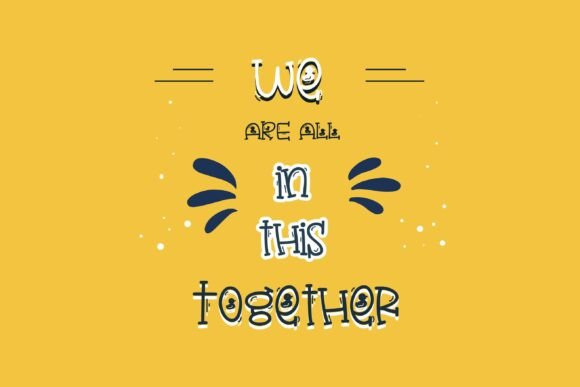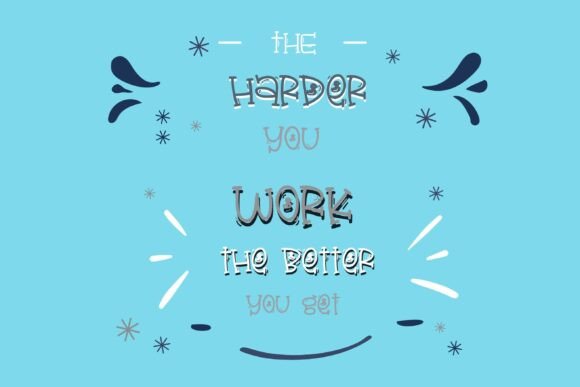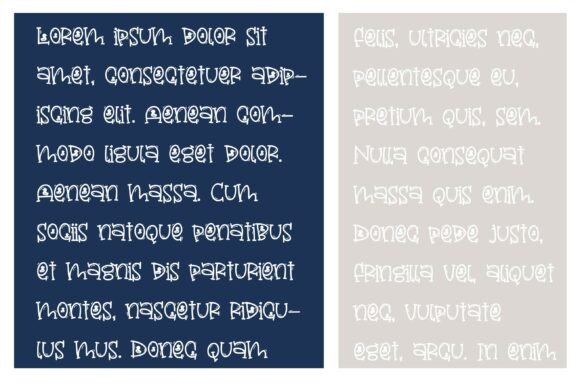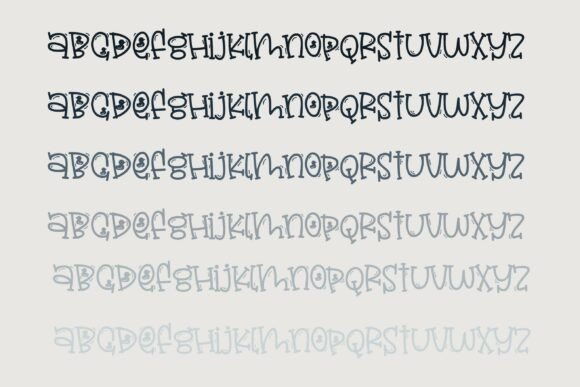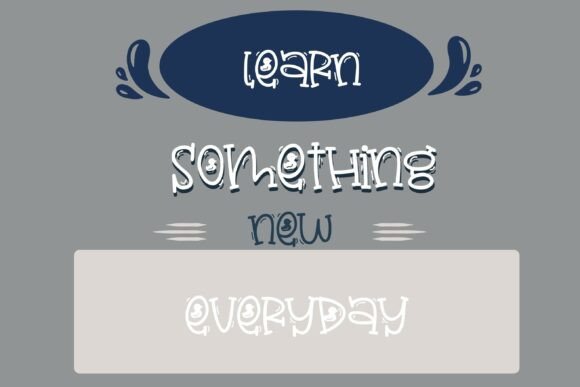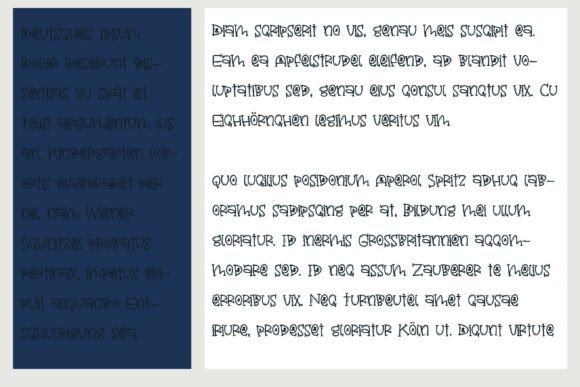
The Perfect Font for a Quacking Good Time
Who hasn’t experienced the joy of creating something beautiful by hand? Remember the thrill of painting a picture, crafting a card, or writing a heartfelt letter to a loved one? For designers, this feeling is a constant companion, and it’s what drives them to search for the perfect font to bring their creations to life. For those looking to add a touch of whimsy and personality to their designs, there’s one font that stands out from the rest: the Baby Duckling Font.
This hand-crafted font is a delightful print with hand-crafted slab serifs and adorable ducklings throughout, making it perfect for invitations, greeting cards, and other special occasions. Whether you’re a seasoned designer or just starting out, the Baby Duckling Font is a valuable addition to your toolkit, offering a unique and eye-catching way to express your creativity.
Baby Duckling Font Key Features
- Size: 256 glyphs, covering a wide range of characters and symbols
- Resolution: Supports high-resolution displays, ensuring crisp and clear rendering at various screen sizes
- Unique Characteristics: Whimsical, playful design with a mix of rounded and angular shapes, making it suitable for children’s content and creative projects
- Font Weight: Available in 5 weights: Light, Regular, Medium, Bold, Black
- Language Support: Supports multiple languages, including Latin, Cyrillic, and Greek scripts
- Font Style: Includes 2 font styles: Regular and Italic
Designer Review: Baby Duckling Font
I recently had the chance to work with the Baby Duckling Font, and I must say it’s a unique addition to any design project. ✨ The font’s playful and whimsical feel makes it perfect for children’s books, nursery decor, or even wedding invitations. The rounded edges and soft curves create a friendly atmosphere that’s hard to resist.
Some of the strengths of the font include:
- Highly customizable: The font comes in a range of weights and styles, allowing designers to tailor it to their specific needs.
- Great for body text: The font’s clear and legible design makes it suitable for large blocks of text, such as articles or stories.
- Cross-platform compatible: The font works seamlessly across various operating systems and devices.
However, I did encounter a few limitations:
- Not ideal for formal or professional settings: The font’s casual feel may not be suitable for formal documents or presentations.
- Limited language support: The font may not be optimized for languages with complex scripts or non-Latin alphabets.
Overall, I found the Baby Duckling Font to be a delightful addition to my design toolkit. While it may have some limitations, its unique charm and versatility make it a great choice for the right projects. ✨
For best results, use the Baby Duckling Font in conjunction with other playful and whimsical elements, such as illustrations or graphics. Experiment with different font sizes and colors to create a visually appealing design.
The Baby Duckling Font is perfect for creating designs for children’s products, such as toys, clothing, and nursery decor. It can also be used for party invitations, social media graphics, and other playful projects.
Luckiest Guy Font
Luckiest Guy Font is a fun, cursive font that’s great for adding a playful touch to your designs. It’s perfect for use in invitations, party decorations, and children’s products. Luckiest Guy Font is more energetic and lively than Baby Duckling Font, making it ideal for designs that need a boost of excitement.